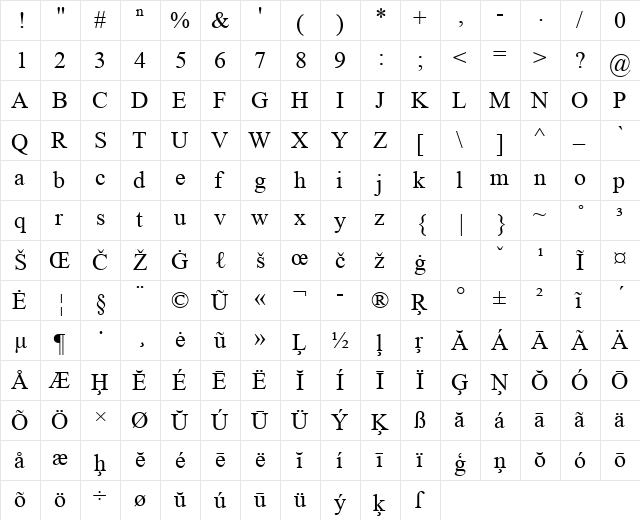
Liborsoft Latin D Regular
Design Context for Liborsoft Latin D Typeface
Liborsoft Latin D offers clean, dependable letterforms without strong stylistic allegiance, making it a practical choice for designers who need flexibility.